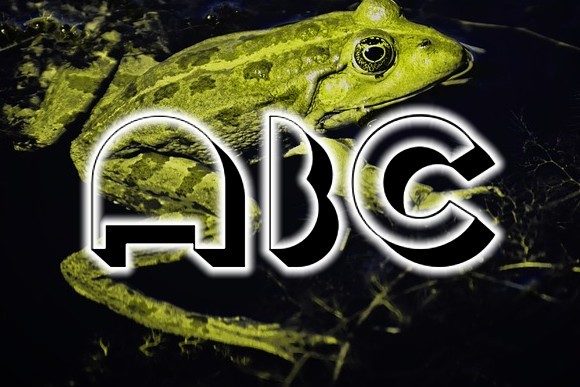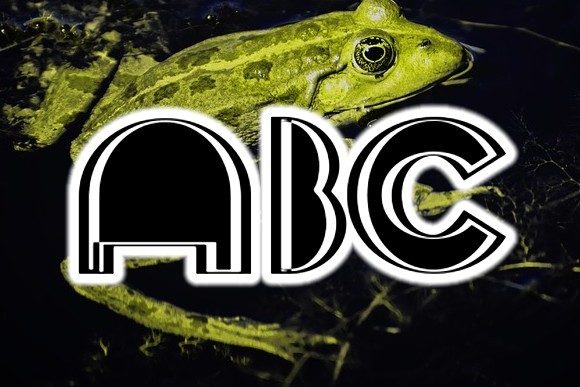
Frog Font: The Ultimate 3D Display Font for Your Design Needs
Are you tired of using the same old fonts for your designs? Look no further! Introducing Frog Font, an awesome 3D display font that’s perfect for adding a touch of fun and creativity to your projects. With its unique and playful design, Frog Font is sure to make your designs stand out from the crowd.
What Makes Frog Font So Special?
Frog Font is a 3D display font that’s designed to add a fun and quirky touch to your designs. Its bold and eye-catching design makes it perfect for headlines, titles, and other design elements that need to grab attention. The font is also highly versatile, making it suitable for a wide range of design projects, from posters and flyers to logos and branding materials.
Endless Variations at Your Fingertips
One of the best things about Frog Font is its endless variations. With this font, you can create unique and personalized designs that reflect your brand’s personality and style. Whether you’re looking for a bold and playful design or a more subtle and sophisticated look, Frog Font has got you covered.
Frog Font is a must-have for designers and crafters who want to add a touch of creativity and fun to their projects. Whether you’re working on a commercial design project or a personal crafting project, this font is sure to inspire you and help you create something truly special.
Key Features of Frog Font
- 3D Display Font: Frog Font is a 3D display font that’s designed to add a fun and quirky touch to your designs.
- Highly Versatile: The font is suitable for a wide range of design projects, from posters and flyers to logos and branding materials.
- Endless Variations: With Frog Font, you can create unique and personalized designs that reflect your brand’s personality and style.
Tips and Tricks for Getting the Most Out of Frog Font
- Experiment with Different Colors: Frog Font looks great in a variety of colors, so don’t be afraid to experiment and find the perfect hue for your design.
- Play with Font Sizes: The font looks great in large and small sizes, so try adjusting the font size to create visual interest and emphasis.
- Combine with Other Fonts: Frog Font pairs well with other fonts, so try combining it with a sans-serif font for a bold and modern look.